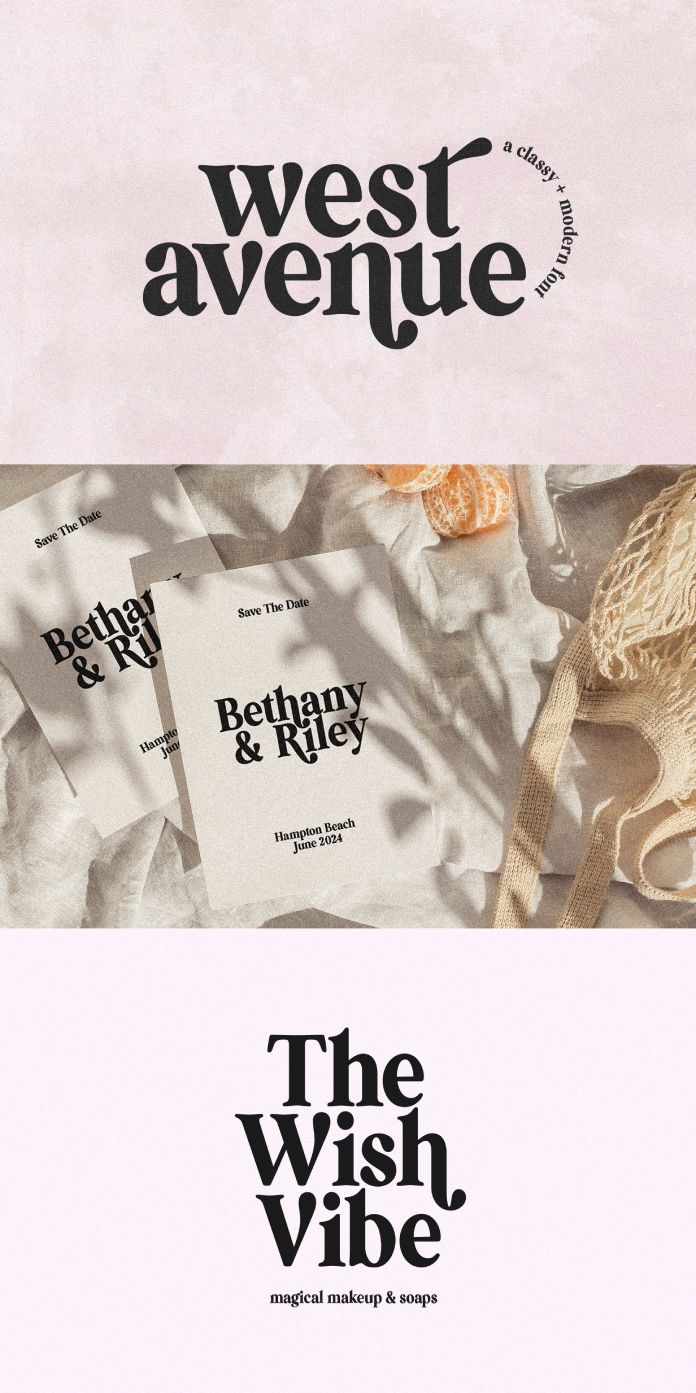
The West Avenue vintage serif font is the perfect blend of boldness and elegance.
Only a few fonts possess the ability to captivate and inspire quite like the West Avenue font by KA Design. This vintage serif typeface seamlessly combines boldness and elegance, making it a versatile choice for any creative project. With its modern yet vintage appeal, West Avenue is bound to grab attention and add a touch of sophistication to your brand and designs. In this article, we will explore the features and potential applications of this remarkable typeface.
The Allure of West Avenue: One of the defining characteristics of the West Avenue font is its ability to strike a harmonious balance between boldness and elegance. The bold serifs give the font a strong presence, while the delicate curves add a touch of refinement. This unique blend makes West Avenue a standout choice for designers seeking to make a memorable impact.
Alternate Letters and Swashes: West Avenue goes beyond the standard character set by offering alternate letters with curvy swashes. These beautifully designed alternate characters are embedded into the font file, making them easily accessible in popular design programs such as Photoshop and Illustrator. With a simple keystroke, you can unlock a plethora of stylistic options to elevate your designs.
Versatile Applications: The versatility of West Avenue is truly impressive. Whether you are creating a logo, developing a branding strategy, designing advertisements, working on craft projects, crafting shirts or decor, or even preparing wedding invitations and packaging, this font has got you covered. Its ability to adapt to various contexts makes it an excellent choice for a wide range of design projects.
Stand Out on Social Media: In today’s digital landscape, social media plays a crucial role in brand communication. West Avenue can be a powerful asset in creating eye-catching social media content. Its boldness ensures that your message is delivered with impact, while its vintage charm adds a touch of nostalgia that resonates with viewers. Quotes, announcements, or captions will stand out when presented in this distinctive font.
Elevate Print Materials: Magazines, brochures, and print advertisements benefit greatly from a typeface that commands attention. West Avenue’s bold strokes and elegant details make it a perfect choice for print materials. Whether you want to create striking headlines or enhance the readability of body text, this font will lend a timeless appeal to your print designs.
Craft Projects and Personalization: The West Avenue font is not limited to professional design applications; it can also be a valuable tool for personal projects and crafts. From stickers to handmade cards, West Avenue adds a touch of elegance to any creative endeavor. Its vintage aesthetic evokes a sense of nostalgia, making it a popular choice for DIY enthusiasts and crafters alike.
The West Avenue font by KA Design seamlessly combines boldness and elegance, creating a vintage serif typeface that stands out in any context. With its alternate letters and curvy swashes, this font offers a wealth of design possibilities. From logos and branding to social media content, print materials, and personal projects, West Avenue is a reliable choice that brings attention and sophistication to your creations. Embrace this font’s timeless appeal, and watch your designs flourish with its bold yet elegant presence.